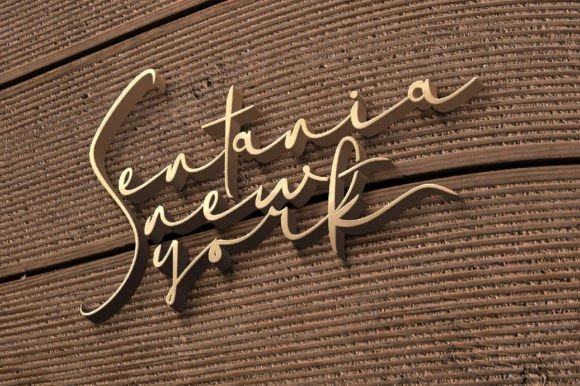
My Journal Handwriting Font
My Journal Handwriting Font is a dainty script font. This font is neatly crafted and highly detailed. Whatever the topic, this font will be a wonderful asset to your font library, as it has the potential to enhance any creation.